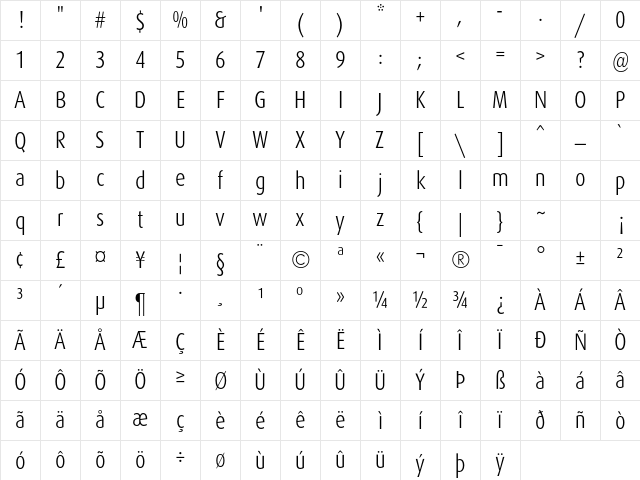
DaxCondensed Light Free Font
DaxCondensed Light
Design Context for DaxCondensed
DaxCondensed is a composed and adaptable typeface that performs quietly and consistently across a wide range of design contexts. Its slender proportions lend an understated elegance to any composition. Its narrow stance lets it pack a punch even in space-constrained designs.